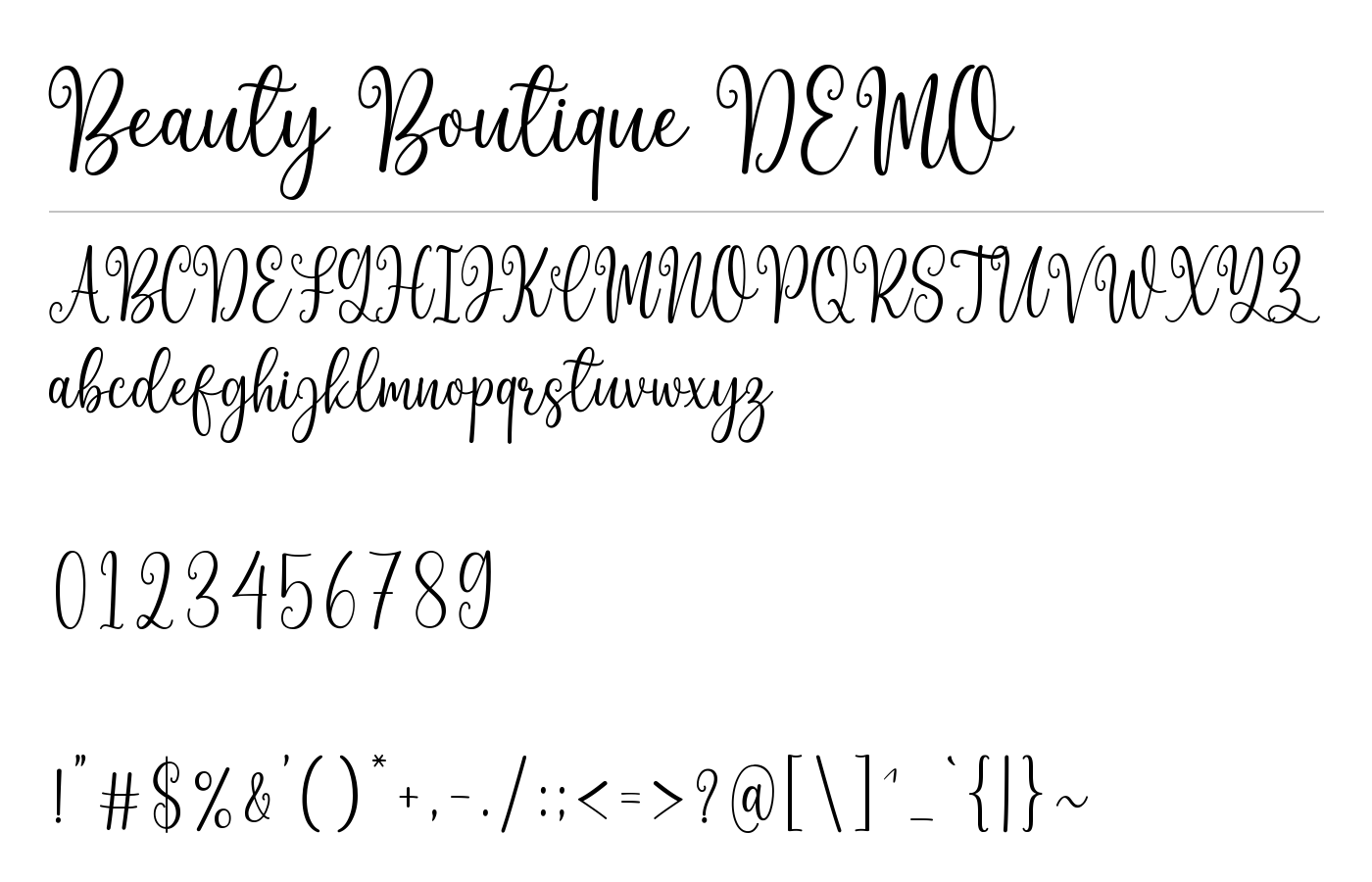
Beauty Boutique DEMO is an elegant script font with a delicate, handwritten style featuring graceful swirls and a tall, slender form. Its thin, smooth strokes and decorative uppercase letters make it perfect for luxurious branding, fashion, beauty packaging, and sophisticated editorial designs where a refined, feminine touch is desired. This font works best in headlines or logos where its stylish, airy personality can shine.
Beauty Boutique DEMO Font
About Beauty Boutique DEMO Font
| Font family | Beauty Boutique DEMO Font |
| Designer | Rayvaldo Rizki Pratama Augusta |